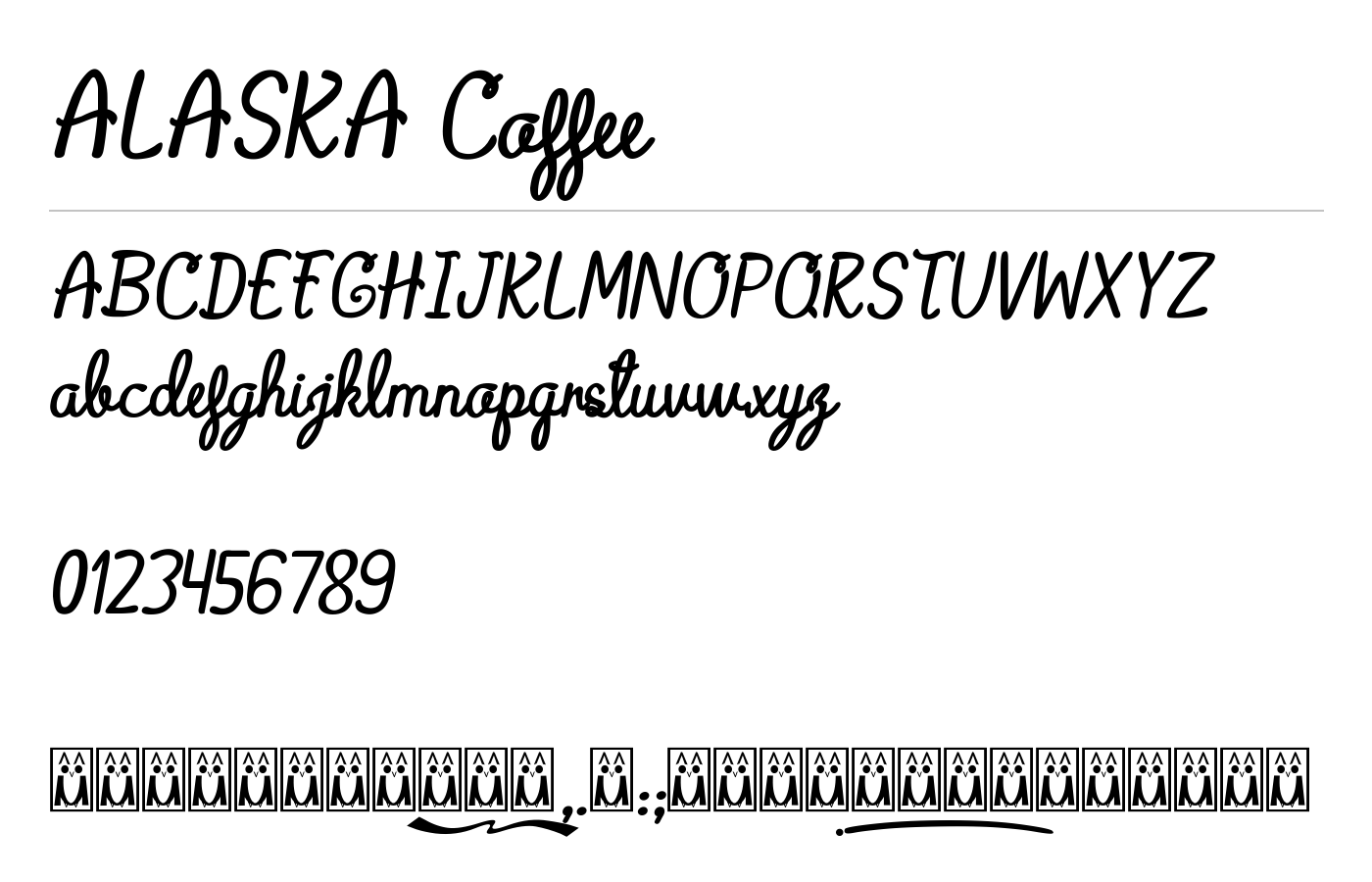
ALASKA Coffee is a playful and casual script font with a friendly, handwritten feel. Its smooth, slightly slanted letterforms have moderate contrast and a lively rhythm, making it perfect for creative, informal branding, café menus, or lifestyle projects seeking a warm and approachable vibe. This font works well in headlines and short text where a personal, inviting touch is desired.
ALASKA Coffee Font
About ALASKA Coffee Font
| Font family | ALASKA Coffee Font |
| Designer | Jaime Rangel Castro |